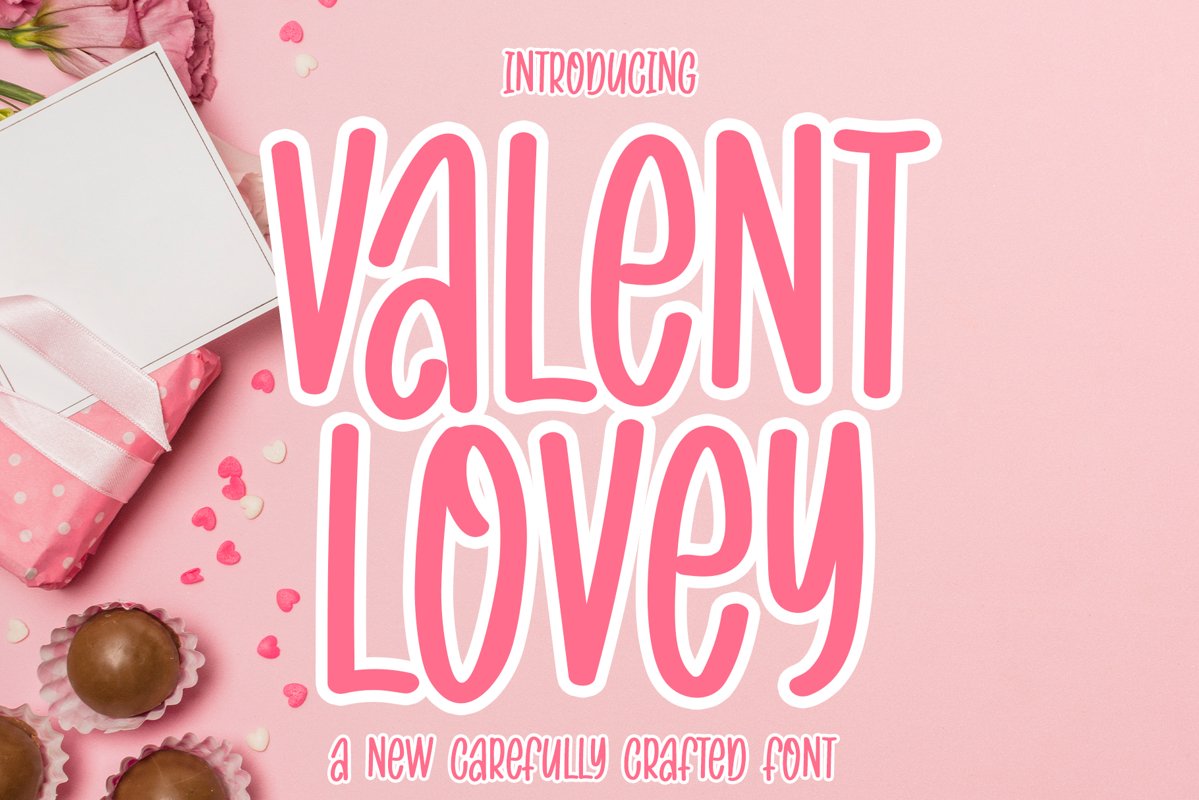
Valent Lovey
VALENTLOVEY
VALENT LOVEY
Introducing Valent Lovey beautiful hand made font it is very perfect for craft, logo, branding, cards, book cover and others Includes OTF and TTF.